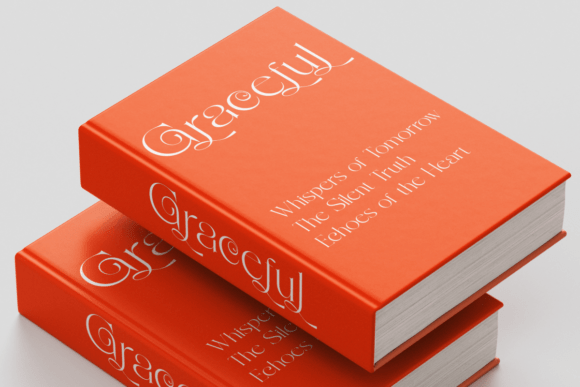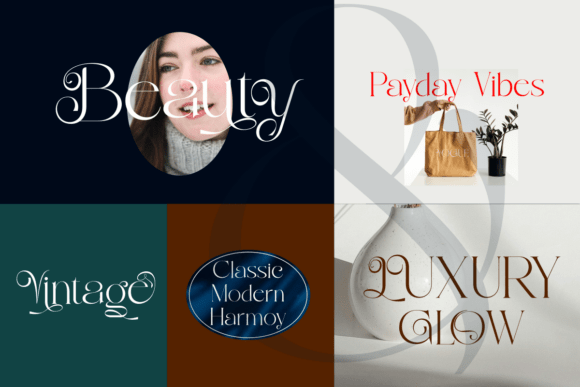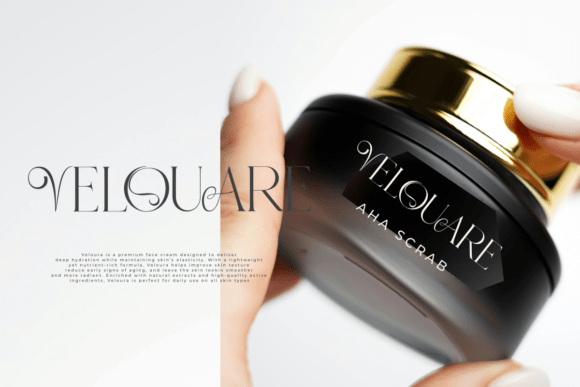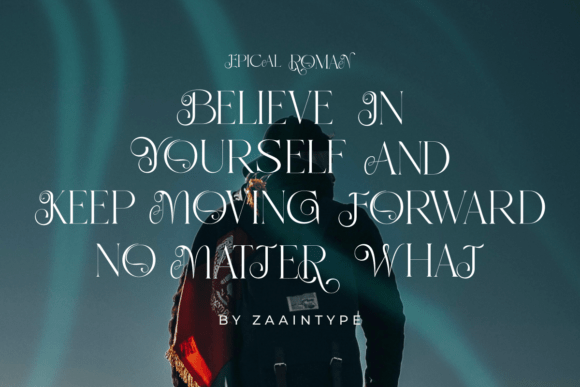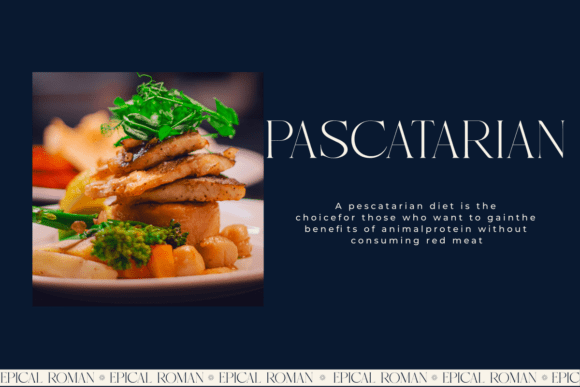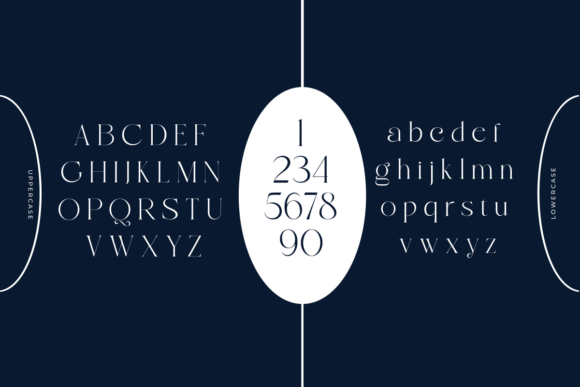
Introduction to Epical Roman Font
As a designer, you know the thrill of discovering a new font that instantly elevates your creative project. The perfect combination of style, readability, and sophistication can make all the difference between a good design and a great one. For me, that moment came when I stumbled upon the Epical Roman Font. Its timeless elegance and refined letterforms spoke directly to my heart, and I knew I had to share it with the world.
But what makes Epical Roman Font truly special? For starters, its high-quality design is both a design resource and a versatile tool for creatives. With its balanced proportions and delicate serif details, it’s perfect for a wide range of applications, from editorial layouts to luxury branding. And the best part? It’s available for free download, making it an accessible choice for designers of all levels.
Key Features of Epical Roman Font
- High-quality font with a professional and elegant design, perfect for creative projects that require a touch of sophistication.
- Designed as a versatile font, ideal for use in various design resources, including logos, brochures, and posters.
- Features a transparent background, allowing for seamless integration with any design element.
- Includes 6 styles (Thin, Light, Regular, Medium, Bold, and Black) to cater to different design needs.
- Designed with a resolution of 300 DPI, ensuring crisp and clear readability, even in large formats.
- Can be easily scaled and customized to fit various design requirements, making it a valuable design resource.
Honest Review: Epical Roman Font
I recently stumbled upon the Epical Roman Font, and I’m excited to share my thoughts on this design resource. The first thing that caught my attention was its high quality and elegant design. It’s perfect for a creative project that requires a sophisticated look and feel.
What works well about the Epical Roman Font is its versatility. It can be used for a variety of purposes, from logos and branding to body text and headings. The font is also available for free download, which is a huge plus for designers on a budget.
- ✨ Versatile and can be used for various purposes
One limitation of the Epical Roman Font is that it doesn’t come with a transparent background, which might be a problem for designers who need to use it on a transparent background.
Overall, I’m impressed with the Epical Roman Font. It’s a great design resource that’s perfect for designers who want a high-quality, elegant font for their creative projects. While it has some limitations, it’s still a valuable addition to any designer’s toolkit.
To get the most out of the Epical Roman Font, experiment with different font sizes, colors, and combinations. Use it to create a consistent design language throughout your project.
The Epical Roman Font is perfect for creative projects such as:
- Wedding invitations
- Business proposals
- Product labels
- Brand identities
Alternatives to Epical Roman Font
Great Vibes is a high-quality, elegant font suitable for creative projects, such as posters, flyers, and business cards. It features a transparent background, making it perfect for designs where you need a clear and clean look. Use Great Vibes for a sophisticated and modern design.
Compared to Epical Roman Font, Great Vibes has a more refined and polished appearance, making it ideal for high-end designs. Its high x-height and generous spacing make it easy to read, even at small font sizes.
Alex Brush is a beautiful, handwritten font that’s perfect for creative projects, such as invitations, wedding designs, and packaging. It features a high-quality design with a transparent background, making it easy to use on any design resource. Use Alex Brush for a personal and elegant touch.
Is the Epical Roman Font available with a transparent background?
Yes, the Epical Roman Font is available with a transparent background, making it easy to use in design projects where a background image or color is required. This feature is especially useful for creating logos, icons, and other design elements that need to be placed over a background image.